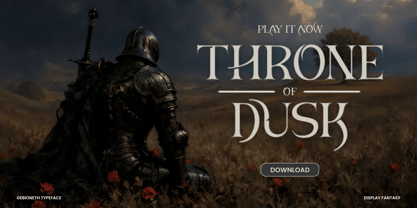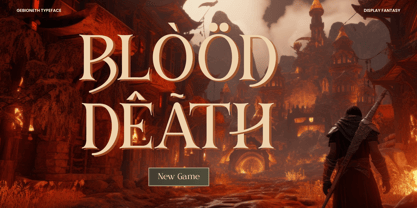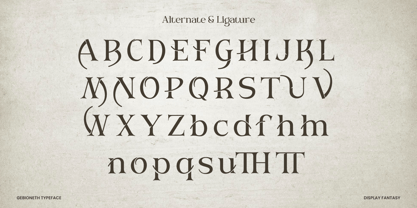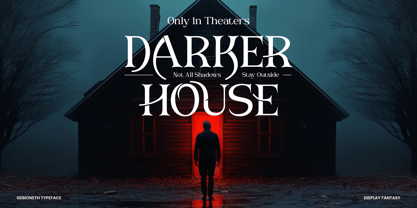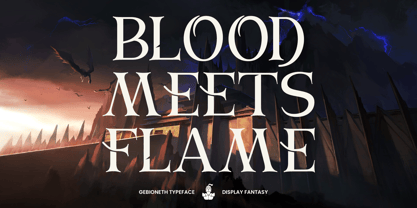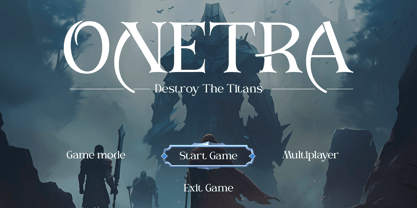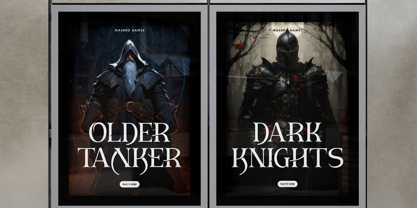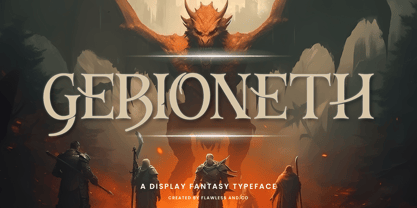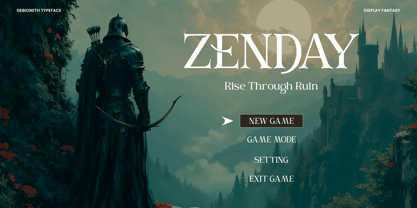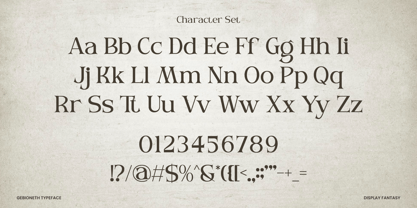
Gebioneth
by Flawlessandco
The Gebioneth Font Family was designed by Achmad Yani and published by Flawlessandco. Gebioneth contains 1 styles. More about this family
Gebioneth is a bold and powerful fantasy display typeface, crafted to bring an epic touch to your creative projects. With its sharp details, mystical curves, and dramatic character shapes, Gebioneth captures the essence of medieval fantasy worlds filled with warriors, dragons, and legends. Perfect for game titles, movie posters, book covers, branding, or any project that demands a heroic and legendary feel, Gebioneth makes your words look timeless and unforgettable.
Multilingual, Uppercase alphabet A-Z, Lowercase alphabet a-z, Numbers 0-9, Some punctuation, Alternates & Ligatures
Designers: Achmad Yani
Foundry: Flawlessandco